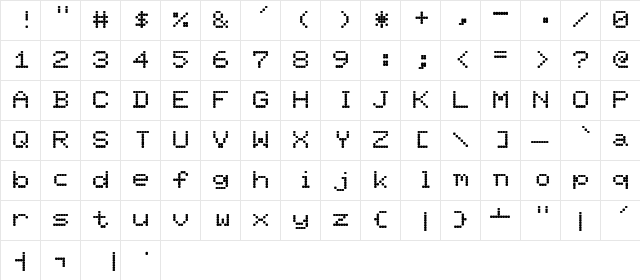
AxlongScreen_Font-Light Regular Font Preview
AxlongScreen_Font-Light Regular
AxlongScreen_Font-Light Regular Font Details
Design Context for AxlongScreen_Font-Light Typeface
AxlongScreen_Font-Light offers clean, dependable letterforms without strong stylistic allegiance, making it a practical choice for designers who need flexibility. The delicate stroke weight brings airiness and refinement to layouts.